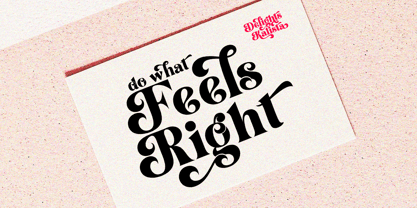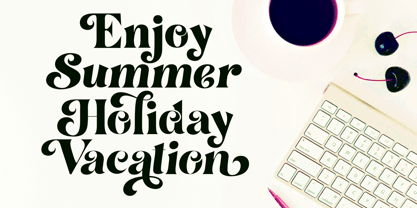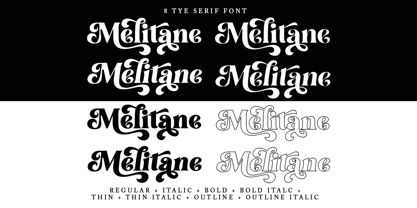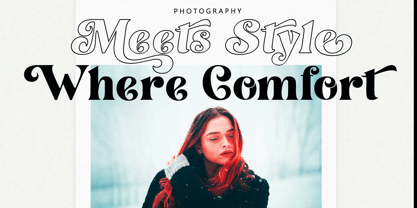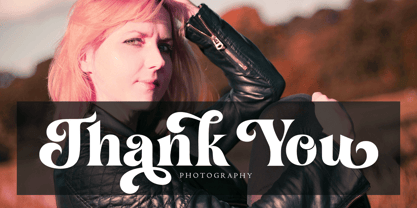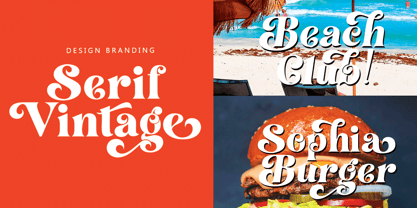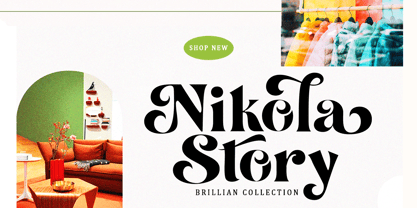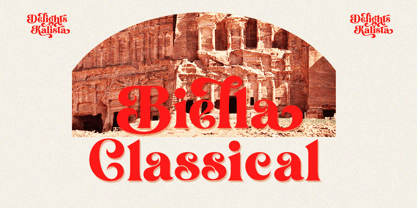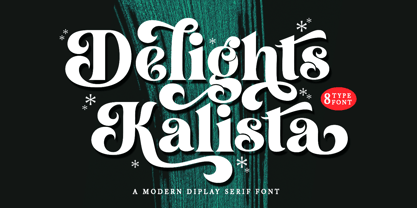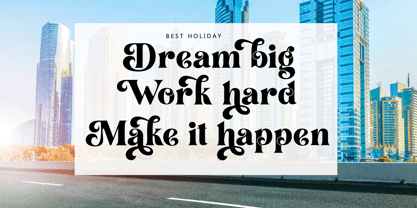
Delights Kalista
The Delights Kalista Font Family was designed by Wahi Din and published by Gold Type. Delights Kalista contains 8 styles and family package options. More about this family
Delights Kalista is a beautiful and versatile serif font. This font is characterized by a serif style with a luxurious style in a modern form, but also a friendly and cheerful style in bold, Delights Kalista has glyphs to give crafters more choices in designing. This modern style will make a design appear more classy, elegant, unique and edgy.
Delights Kalista is a font suitable for many projects, for modern or even retro vintage designs, branding, logos, crafts, stickers, sublimation, wedding invitations and much more. This font is suitable for various projects such as logos, branding, magazines, signage, fashion, and many more.